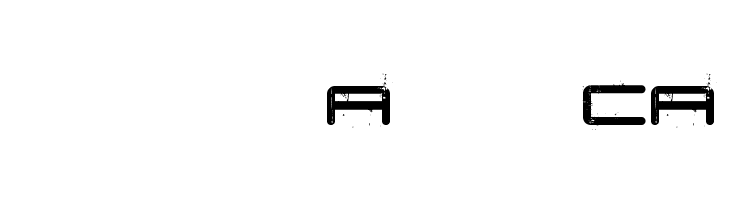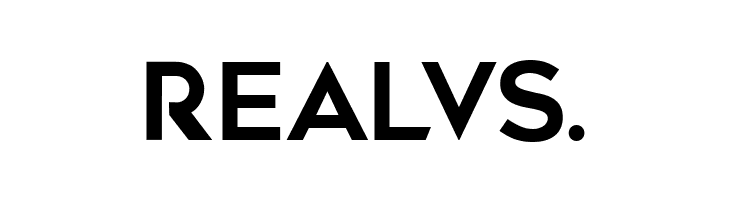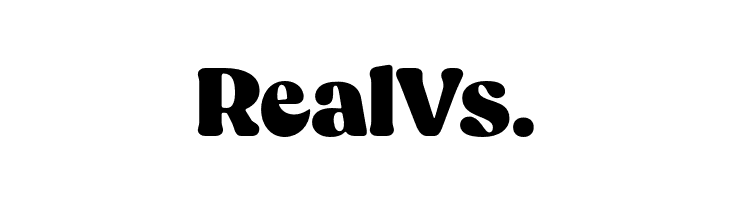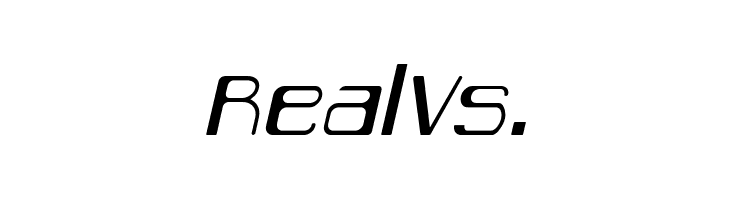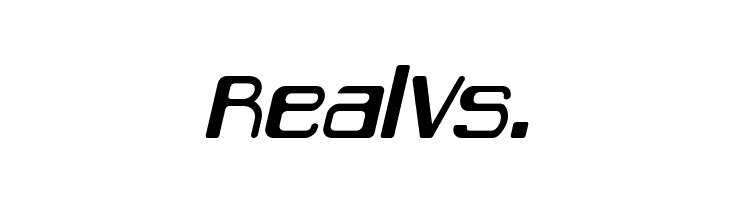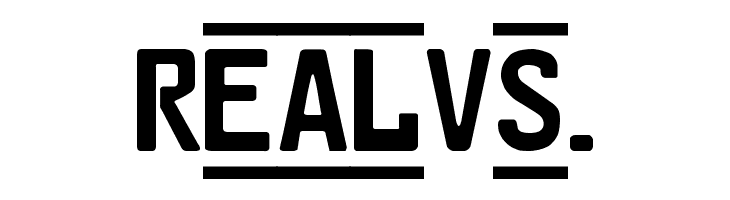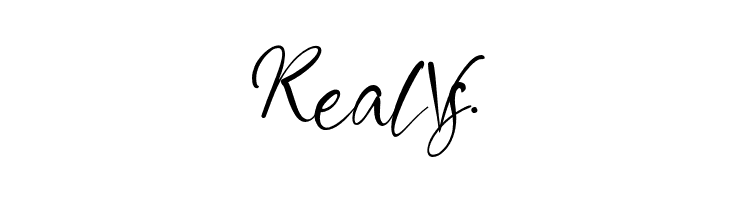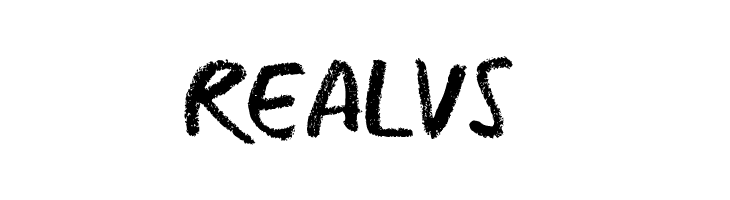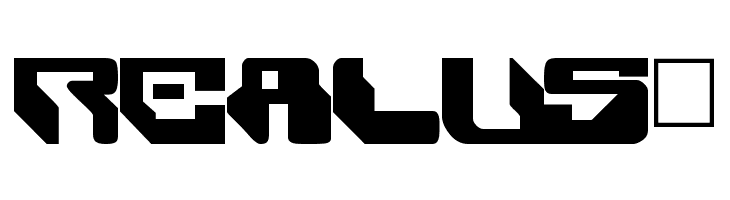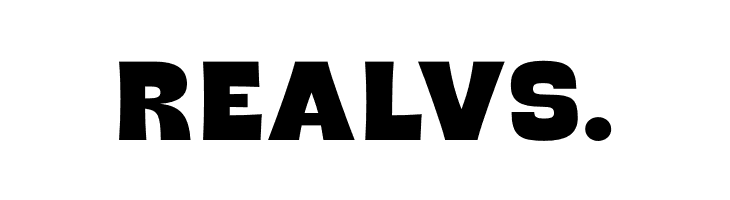
A bold, modern sans-serif font with clean, geometric lines.
A bold, outlined font with a playful and geometric design.
A bold, playful font with a three-dimensional outline and geometric style.
A graceful and elegant script font with fluid, connected letters.
A bold, playful font with thick, rounded characters ideal for comic-style projects.
A bold and impactful font with thick strokes and a strong presence.
A bold, distressed font with a rugged, textured appearance.
A bold, distressed stencil-style font with a rugged, vintage appearance.
A sophisticated, elegant script font with fluid, cursive strokes.
A bold, distressed font with a grunge, vintage appearance.
A bold, geometric font with strong symmetry and modern appeal.
An elegant and flowing script font with interconnected letterforms and graceful curves.
A delicate, flowing script font with elegant cursive letterforms.
A bold, rounded font with a playful and robust appearance.
A bold, textured font with a hand-drawn, chalk-like appearance.
A modern, distressed font with a bold, geometric style.
A bold, grungy font with a distressed, textured appearance.
A bold, geometric font with a modern and structured design.
A bold, geometric font with a structured and industrial style.
A bold, geometric font with a modern industrial feel and rounded corners.
A modern, geometric font with clean lines and rounded edges, perfect for a futuristic look.
A modern, geometric font with rounded edges and a sleek design.
A bold, modern font with a geometric and slightly rounded design.
A bold, italicized font with a modern and dynamic style.
A modern, italicized font with a sleek and dynamic style.
A modern, geometric font with clean lines and a sleek, condensed style.
A sleek, modern, light italic font with medium contrast and a streamlined appearance.
A modern, geometric font with bold, angular lines and a futuristic style.
A modern, slanted font with consistent stroke width and a dynamic appearance.
A modern, geometric font with a sleek and compact design.
A modern, italicized font with a sleek and dynamic design.